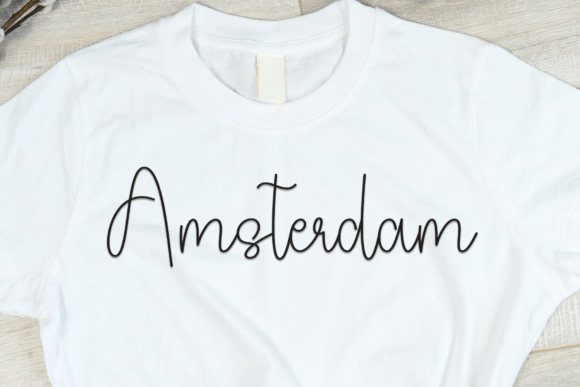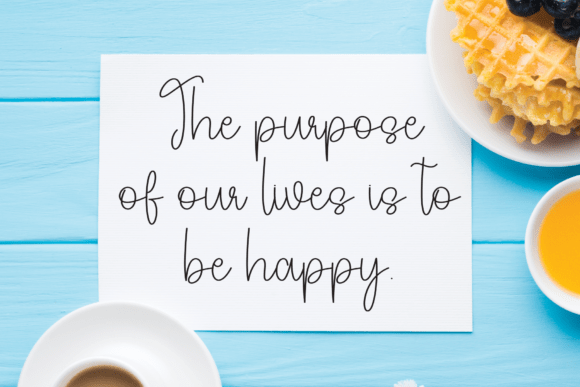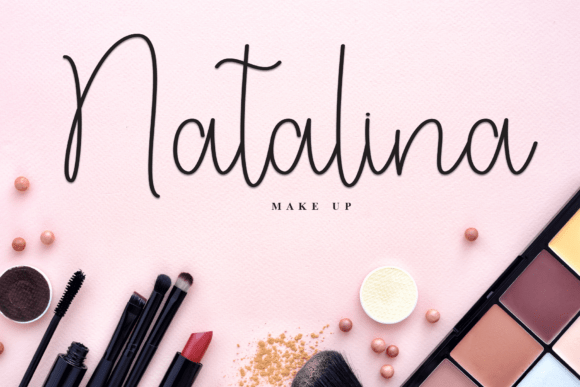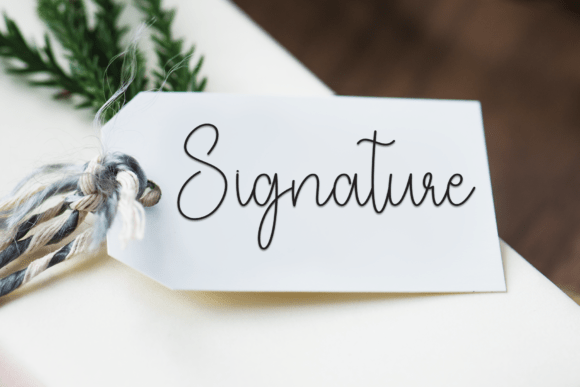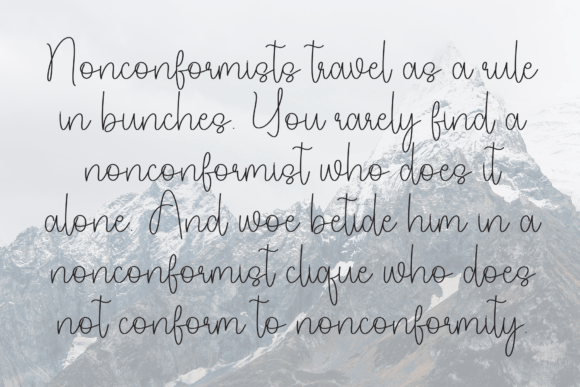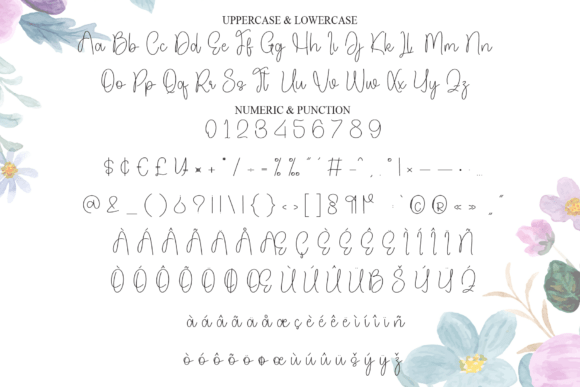
The Perfect Blend of Whimsy and Elegance: Kamilla Handwritten Font
Have you ever found yourself scribbling away in your journal, lost in the flow of your own handwriting? That’s where the magic happens, and the true essence of your creativity comes alive. It’s in those moments that you might realize the beauty of handwritten fonts, and how they can elevate even the simplest of designs.
Enter Kamilla Handwritten Font, a modern script font that embodies the perfect blend of whimsy and elegance. This clean and refined font is designed to mimic the natural flow of a neat signature, making it ideal for branding, planner pages, and personal notes. For designers, Kamilla Handwritten Font offers a valuable resource for creating professional yet approachable designs that exude sophistication and charm.
With its soft flow and feminine charm, Kamilla Handwritten Font is an essential tool for anyone looking to add a touch of personality to their designs. Whether you’re a seasoned designer or a creative enthusiast, this font is sure to inspire your next project.
Kamilla Handwritten Font Key Features
- Font Style: Handwritten, Script
- Character Set: Latin, Cyrillic, Greek, and other languages
- Unique Characteristics: Includes ligatures, swashes, and flourishes for a more elegant and personal touch
Kamilla Handwritten Font Review
I recently had the chance to work with the Kamilla Handwritten Font, and I must say it’s a unique addition to any design project. ✨ One of the things I love about this font is its versatility – it works well for a wide range of applications, from invitations and wedding stationery to branding and packaging. The handwritten feel is perfect for adding a touch of personality to your designs.
Some of the key features that make Kamilla Handwritten Font stand out include:
- Highly legible characters that are easy to read
- Beautiful, flowing connections between letters
- A wide range of font sizes and styles to suit your needs
However, there are a few limitations to keep in mind. ⚠️ One of the main issues I encountered was the font’s sensitivity to size and spacing. If you’re not careful, the letters can start to look a bit sloppy or uneven. Additionally, the font may not be the best choice for body text or large blocks of text, as it can be a bit overwhelming.
Overall, I think the Kamilla Handwritten Font is a great choice for designers who want to add a touch of personality to their projects. With a little practice and patience, you can achieve some truly beautiful results.
Kamilla Handwritten Font is perfect for:
- Custom branding and logos
- Personalized gifts and cards
- Food and drink menus
Remember to adjust the font size and color to suit your design needs, and experiment with different combinations of fonts and layouts to create unique and eye-catching designs.
Alternatives to Kamilla Handwritten Font
Carolyna Pro is a beautiful, elegant handwritten font ideal for creating invitations, wedding stationery, and other luxury designs. It features a high-end feel with intricate details and flourishes. When to use: luxury designs, invitations, wedding stationery.
Comparison to Kamilla Handwritten Font: Carolyna Pro has a more refined and sophisticated feel, making it suitable for high-end designs. It has a more consistent and uniform style compared to Kamilla Handwritten Font.
Great Vibes is a modern and trendy handwritten font perfect for creating a relaxed and casual atmosphere. It features a mix of elegant and playful elements, making it ideal for social media graphics, blog posts, and other digital content. When to use: social media graphics, blog posts, digital content.